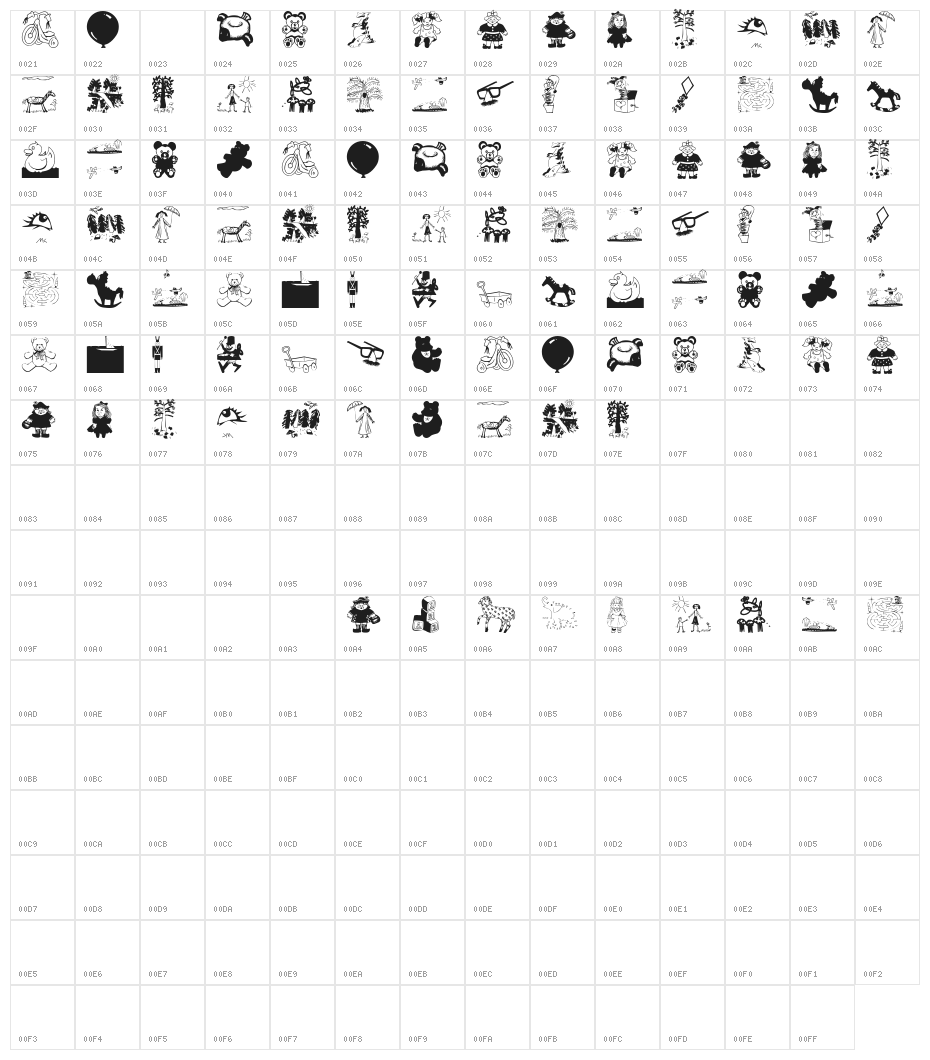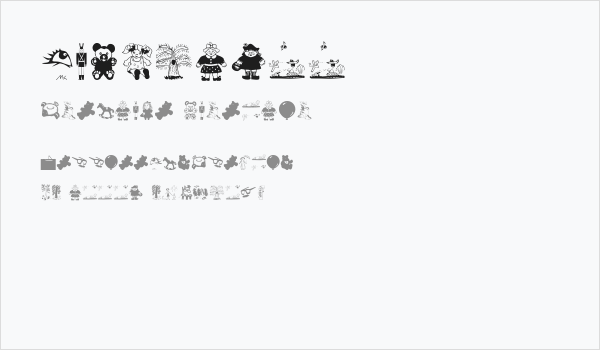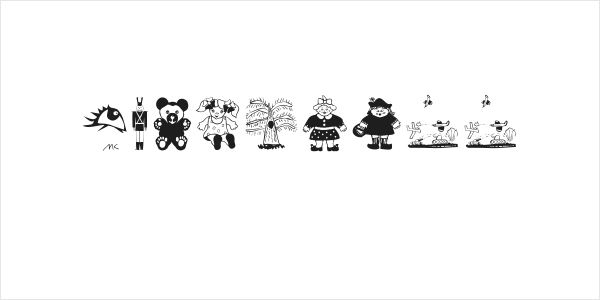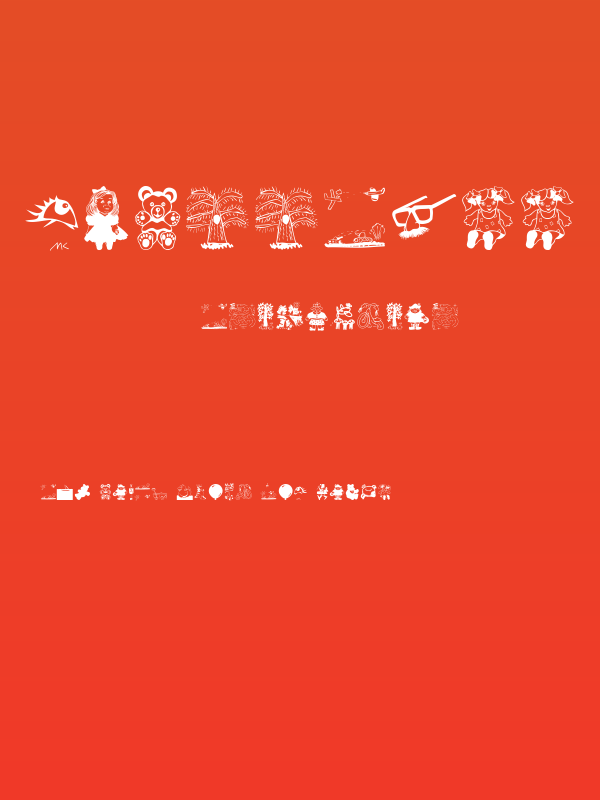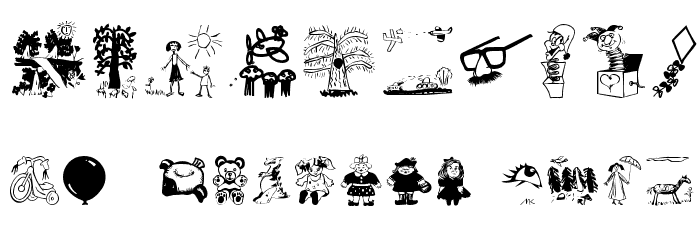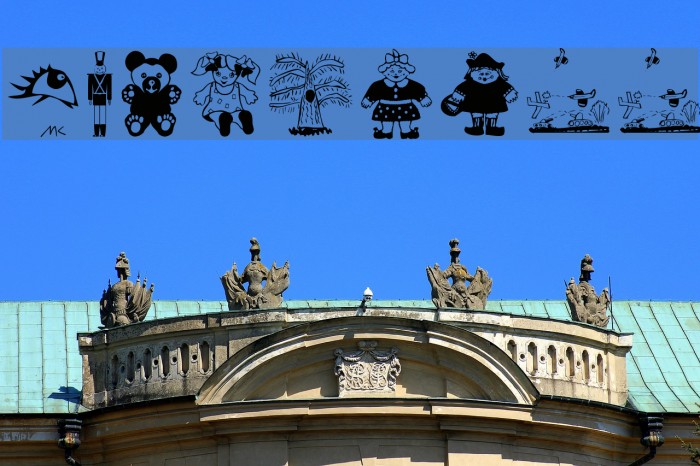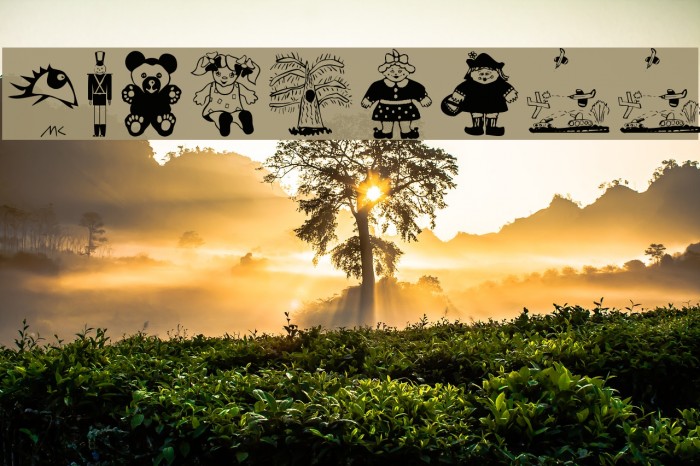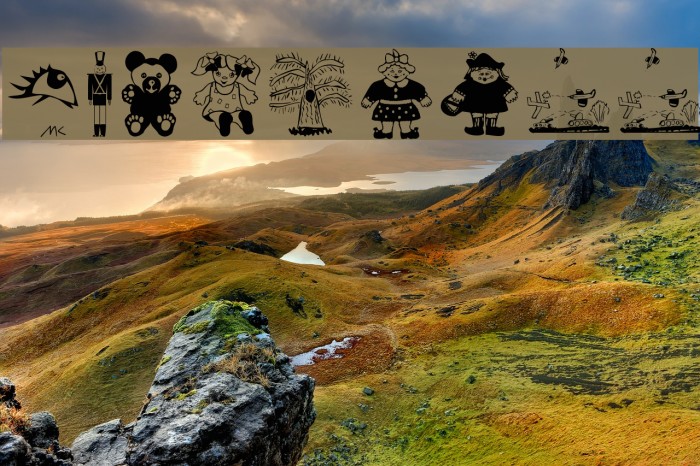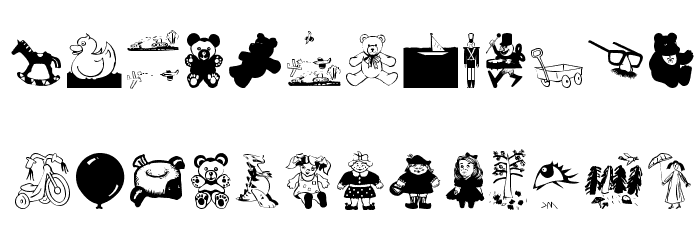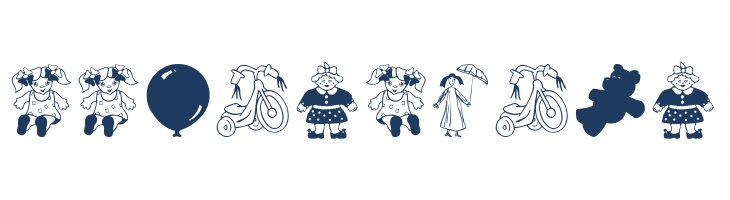
KidsStuff Font
KidsStuff Description
This font is a playful and whimsical collection of characters and illustrations, perfect for capturing the imagination of children. Each character is represented by a unique, cartoon-style image that includes elements like toys, animals, and playful scenes. The style is highly decorative, with a focus on fun and creativity, making it ideal for projects aimed at a younger audience. The images are bold and clear, ensuring they stand out and are easily recognizable. The overall design is consistent, with a cohesive theme that ties all the characters together, making it suitable for educational materials, children's books, or playful branding.
| Overall Style | Playful, Whimsical, Decorative |
| Use Case | Logos, Educational materials, Children's books |
| Proposed Projects | Ideal for children's books, educational materials, playful branding, and creative projects targeting a young audience. |